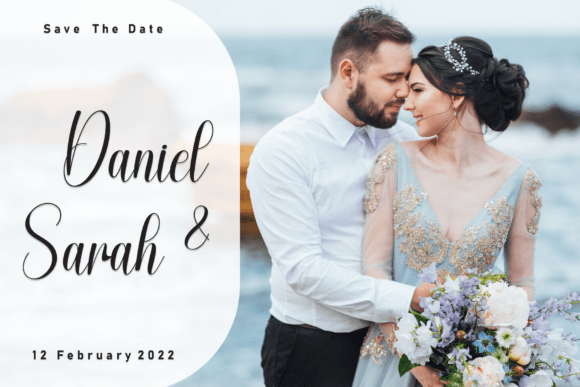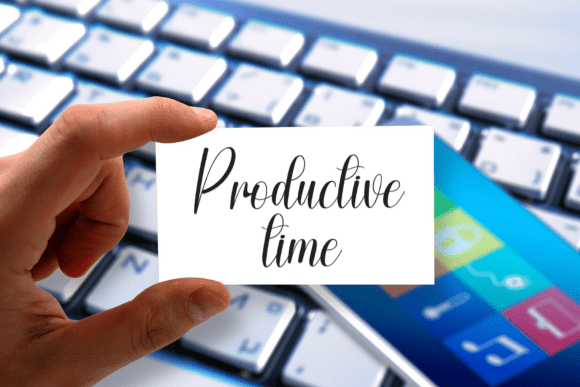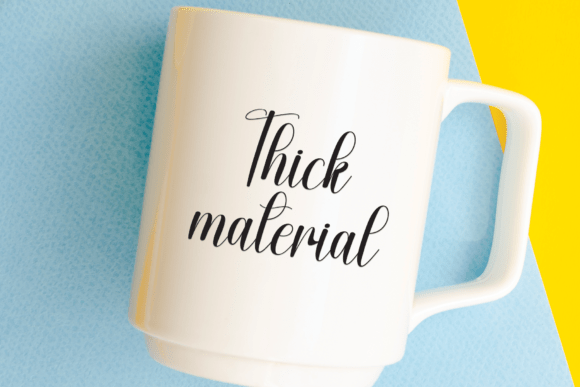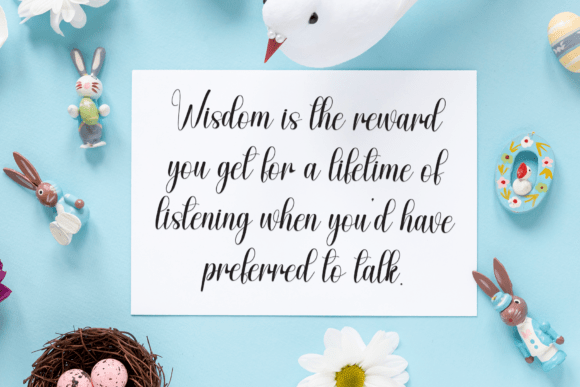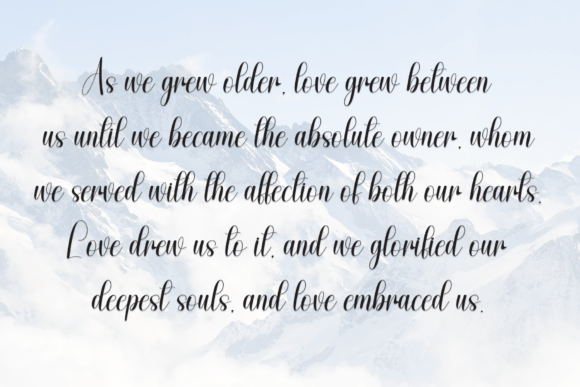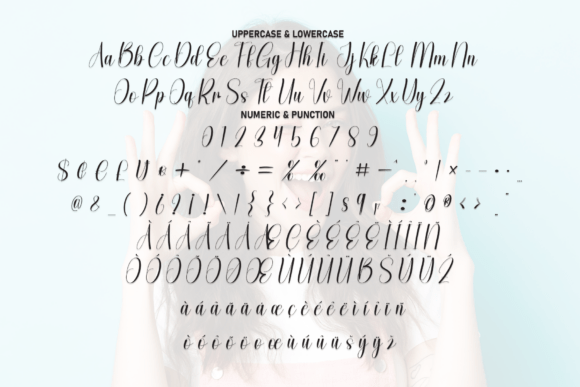
Introducing Delightful Font: The Sweet and Friendly Handwritten Display Font
Are you looking for a font that can add a touch of whimsy and charm to your designs? Look no further than Delightful Font, a uniquely artistic handwritten display font that exudes charm and charisma in every stroke. Aptly named “Sweet and Friendly”, this font is perfect for adding a playful, engaging aura to any project, making it ideal for designers and crafters who want to create something truly special.
The Perfect Balance of Perfection and Spontaneity
Delightful Font strikes a perfect balance between perfection and spontaneity, making it a versatile font that can be used in a variety of designs. Its carefully crafted letters and strokes are both elegant and playful, creating a sense of warmth and friendliness that is sure to invite smiles. Whether you’re designing wedding invitations, greeting cards, or any other project that requires a touch of personality, Delightful Font is the perfect choice.
Whimsical and Charming: The Unique Characteristics of Delightful Font
Delightful Font is a truly unique font that stands out from the crowd. Its handwritten display style is both artistic and charming, with a whimsical touch that adds a dash of personality to any design. The font’s strokes are bold and expressive, with a sense of movement and energy that is sure to capture the attention of your audience. Whether you’re looking to create a playful and fun design or something more elegant and sophisticated, Delightful Font is the perfect choice.
Perfect for Wedding Invitations, Greeting Cards, and More
Delightful Font is perfect for a variety of design projects, including wedding invitations, greeting cards, and more. Its playful and engaging aura makes it ideal for designs that require a touch of personality and whimsy. Imagine using Delightful Font to create a wedding invitation that sets the tone for a joyful and celebratory occasion. Or, picture using it to design a greeting card that conveys warmth and sincerity. The possibilities are endless, and with Delightful Font, you can create designs that are truly unforgettable.
Enhance Your Designs with a Playful, Engaging Aura
Delightful Font is more than just a font – it’s a design element that can enhance any project with a playful, engaging aura. Its carefully crafted letters and strokes are designed to work together to create a sense of warmth and friendliness, making it perfect for designs that require a touch of personality. Whether you’re a designer, crafter, or DIY enthusiast, Delightful Font is the perfect choice for anyone looking to add a dash of whimsy and charm to their designs.
Key Features of Delightful Font
- Uniquely artistic handwritten display font
- Perfect for adding a whimsical touch to wedding invitations, greeting cards, and more
- Strikes a perfect balance between perfection and spontaneity
- Playful and engaging aura that invites smiles and encourages warmth
- Ideal for designers, crafters, and DIY enthusiasts
Get Ready to Fall in Love with Delightful Font
If you’re looking for a font that can add a touch of whimsy and charm to your designs, look no further than Delightful Font. With its uniquely artistic handwritten display style, playful and engaging aura, and versatility, Delightful Font is the perfect choice for designers and crafters who want to create something truly special. So why wait? Get ready to fall in love with Delightful Font and take your designs to the next level.
In conclusion, Delightful Font is a truly unique and special font that can add a touch of whimsy and charm to any design. With its carefully crafted letters and strokes, playful and engaging aura, and versatility, it’s the perfect choice for designers and crafters who want to create something truly special. Whether you’re designing wedding invitations, greeting cards, or any other project that requires a touch of personality, Delightful Font is the perfect choice. So why wait? Try Delightful Font today and see the difference it can make in your designs.